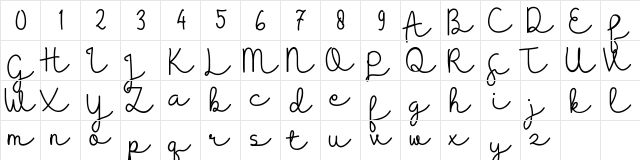
Presty Regular Free Font
Presty Regular Regular
Foundry: Delafa Design
Designer: Milla Febriana Tanjung
Design Context for Presty Regular
Presty Regular is a composed and adaptable typeface that performs quietly and consistently across a wide range of design contexts.